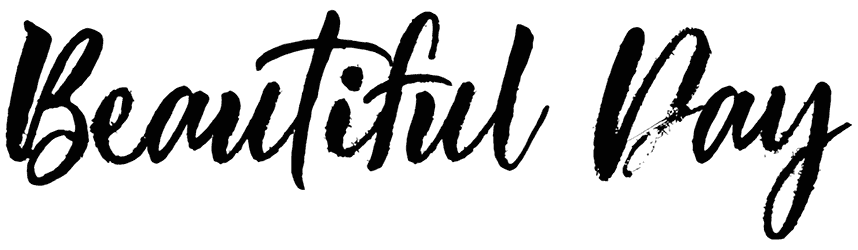
Beautiful Day Font
Sometimes a script font, such as Beautiful Day, can insanely broaden your selection range by offering stylish characters that feel totally elegant. This grunge font carries a feeling of personalization, softness, delicacy, or professionalism.
BEAUTIFUL DAY
So, yeah, let me introduce to you my newest font—not exactly new because honestly this was created way back 2017, but I decided to publish it this year—named “Beautiful Day.”
This is a stunningly elegant brush typeface that is perfect for almost every design you wish to create.
This font comes with a bonus font file containing a collection of catchwords, doodles, borders and a wide array of swashes that you can incorporate into your design.Not just that, the full commercial version offers opentype features such as ligatures (double letter ligatures), contextual alternates, and 3 stylistic sets. [SEE IMAGES FOR DETAILS]